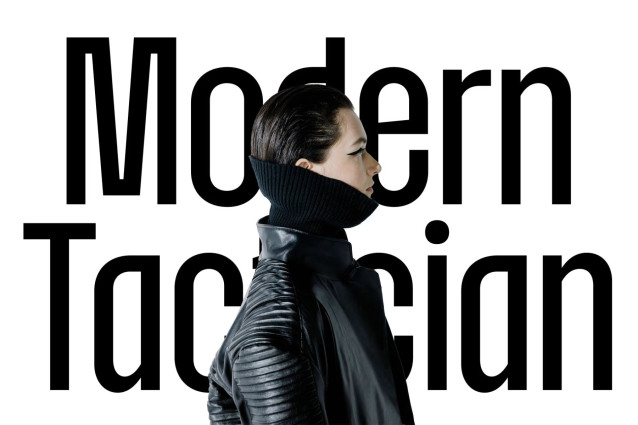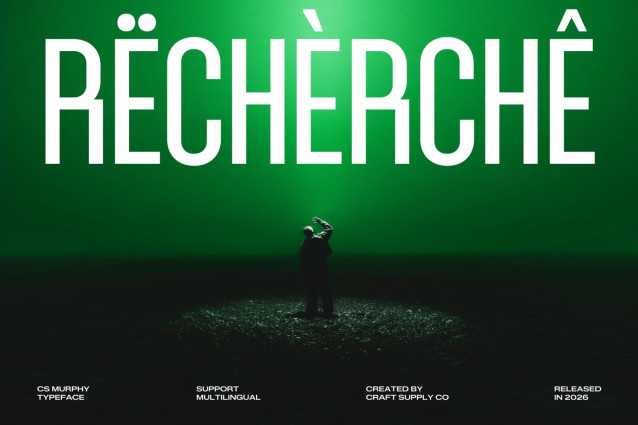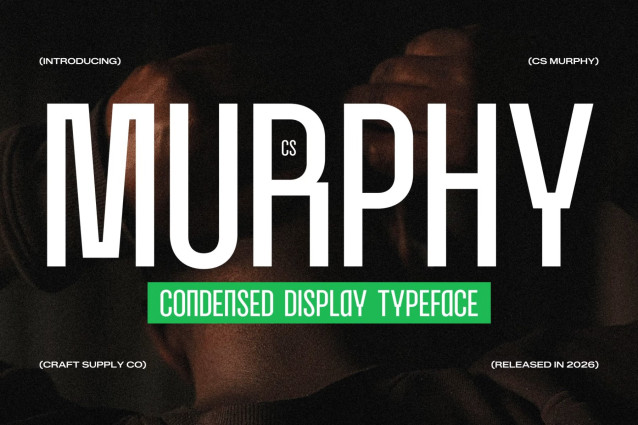
CS Murphy – Condensed Font
CS Murphy – Condensed Display Font with Modern Efficiency
Condensed Display Font for Clean Contemporary Impact
This is a condensed display font designed to bring modern clarity and efficiency into tight layouts. With its streamlined proportions and confident structure, this typeface transforms headlines into bold visual statements while maintaining strong readability. It is crafted for designers who want typography that feels contemporary, clean, and highly functional.
Built to Perform in Tight Spaces
The condensed construction allows more content to fit comfortably into narrow compositions without sacrificing legibility. Each letterform is carefully refined to appear tall, balanced, and easy to read, ensuring your message remains strong even in dense layouts. This makes this font a dependable choice for posters, banners, and impactful titles.
Modern Character with Clean Lines
This font features smooth shapes and a minimal aesthetic that keeps designs looking fresh and professional. Its modern personality allows it to adapt effortlessly across different styles, from minimal compositions to bold graphic layouts. The result is a versatile typeface that feels both efficient and visually engaging.